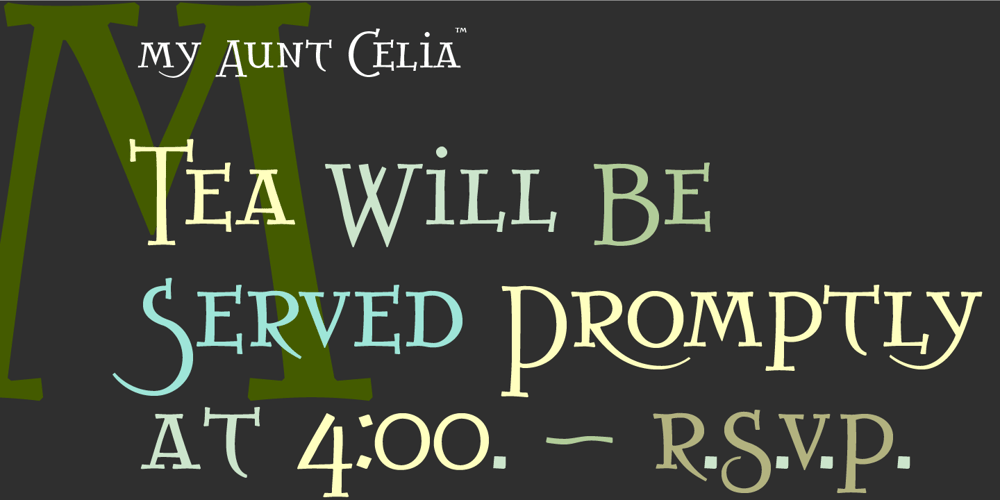
My Aunt Celia
My Aunt Celia font
My Aunt Celia Font Family was designed by David Vereschagin and published by Quadrat. My Aunt Celia contains 1 styles and family package options. My Aunt Celia was designed as a quaint, quasi-elegant display face using caps and small caps. The family consists of two fonts: regular and alternate which, between them, provide many special swash characters, tall caps and ligatures for lively, quirky, mixed settings.